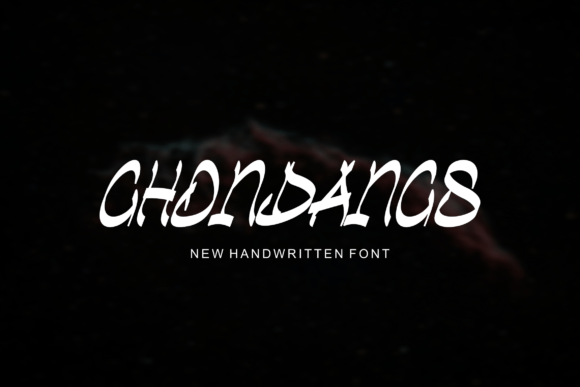
Introducing Ghondangs Font: The Ultimate Bold and Playful Typeface
Are you tired of using the same old fonts for your designs? Look no further! Ghondangs Font is here to shake things up with its bold, handwritten style that’s perfect for making headlines and signs stand out. In this article, we’ll dive into the world of Ghondangs Font and explore its unique features, uses, and benefits for designers and crafters.
What is Ghondangs Font?
Ghondangs Font is a bold, handwritten font that looks like it was written with a marker. Its thick, strong lines give it a casual, playful feel that’s perfect for creating eye-catching headlines, signs, and titles. The font’s unique style is reminiscent of handwritten text, making it a great choice for designs that require a personal touch.
Key Features of Ghondangs Font
- Bold and thick lines: Ghondangs Font features bold, thick lines that give it a strong and sturdy appearance.
- Handwritten style: The font’s handwritten style gives it a personal and playful feel.
- Marker-like texture: The font’s texture resembles that of a marker, adding to its unique charm.
- Casual and playful feel: Ghondangs Font is perfect for designs that require a casual and playful touch.
Uses of Ghondangs Font
Ghondangs Font is versatile and can be used in a variety of design projects, including:
- Headlines and titles: Use Ghondangs Font to create bold and eye-catching headlines and titles.
- Signs and posters: The font’s bold style makes it perfect for creating signs and posters that need to grab attention.
- Branding and logos: Ghondangs Font can be used to create unique and memorable logos and branding materials.
- Social media graphics: The font’s playful style makes it perfect for creating social media graphics that need to stand out.
Benefits of Using Ghondangs Font
So, why should you use Ghondangs Font in your designs? Here are just a few benefits:
- Adds personality to your designs: Ghondangs Font’s unique style adds a personal touch to your designs.
- Grabs attention: The font’s bold style is perfect for grabbing attention and making your designs stand out.
- Versatile: Ghondangs Font can be used in a variety of design projects, from headlines and titles to signs and posters.
- Easy to read: Despite its bold style, Ghondangs Font is easy to read, making it perfect for designs that require a clear and concise message.
Tips for Using Ghondangs Font
Here are a few tips for using Ghondangs Font in your designs:
- Use it sparingly: Ghondangs Font is bold and attention-grabbing, so use it sparingly to avoid overwhelming your design.
- Pair it with a simple font: Pair Ghondangs Font with a simple font to create contrast and add visual interest to your design.
- Experiment with colors: Ghondangs Font looks great in a variety of colors, so experiment with different colors to find the one that works best for your design.
Ghondangs Font is a bold, handwritten font that’s perfect for making headlines and signs stand out. Its unique style, versatility, and ease of use make it a great choice for designers and crafters. Whether you’re looking to add personality to your designs, grab attention, or create a memorable brand, Ghondangs Font is the perfect choice. So why not give it a try and see the difference it can make in your designs?